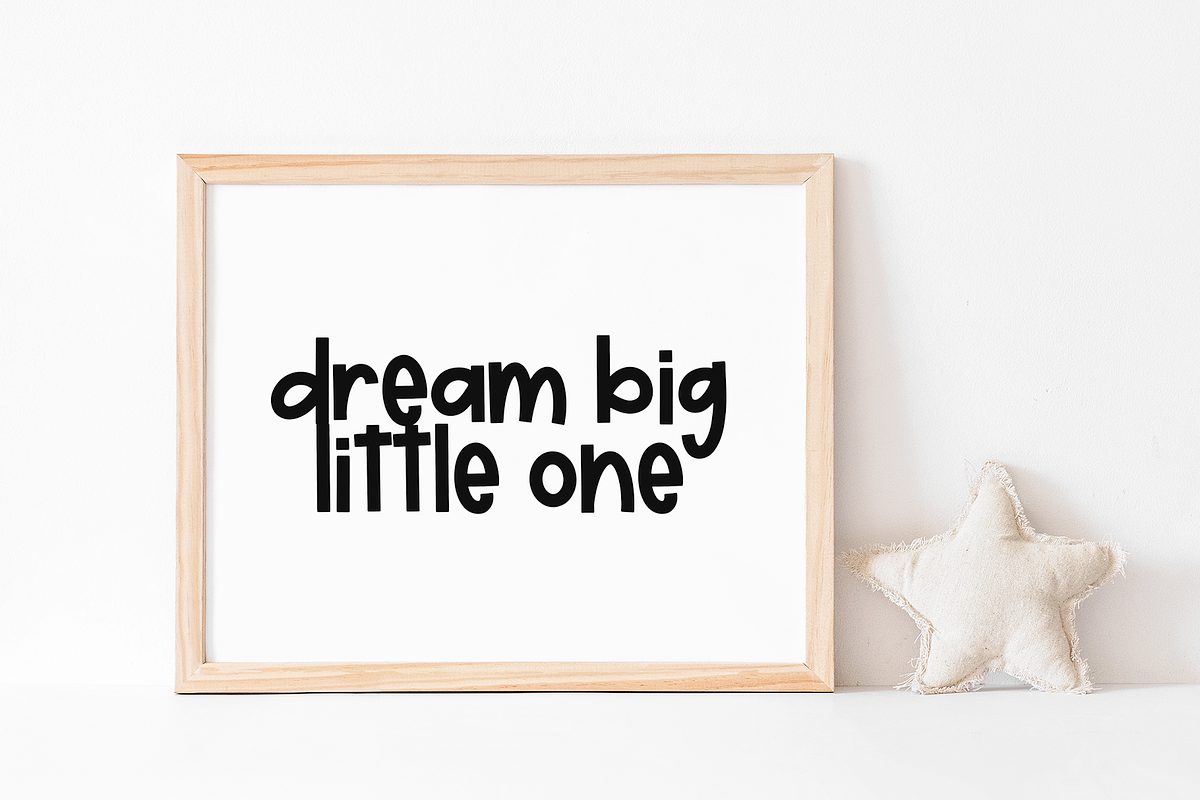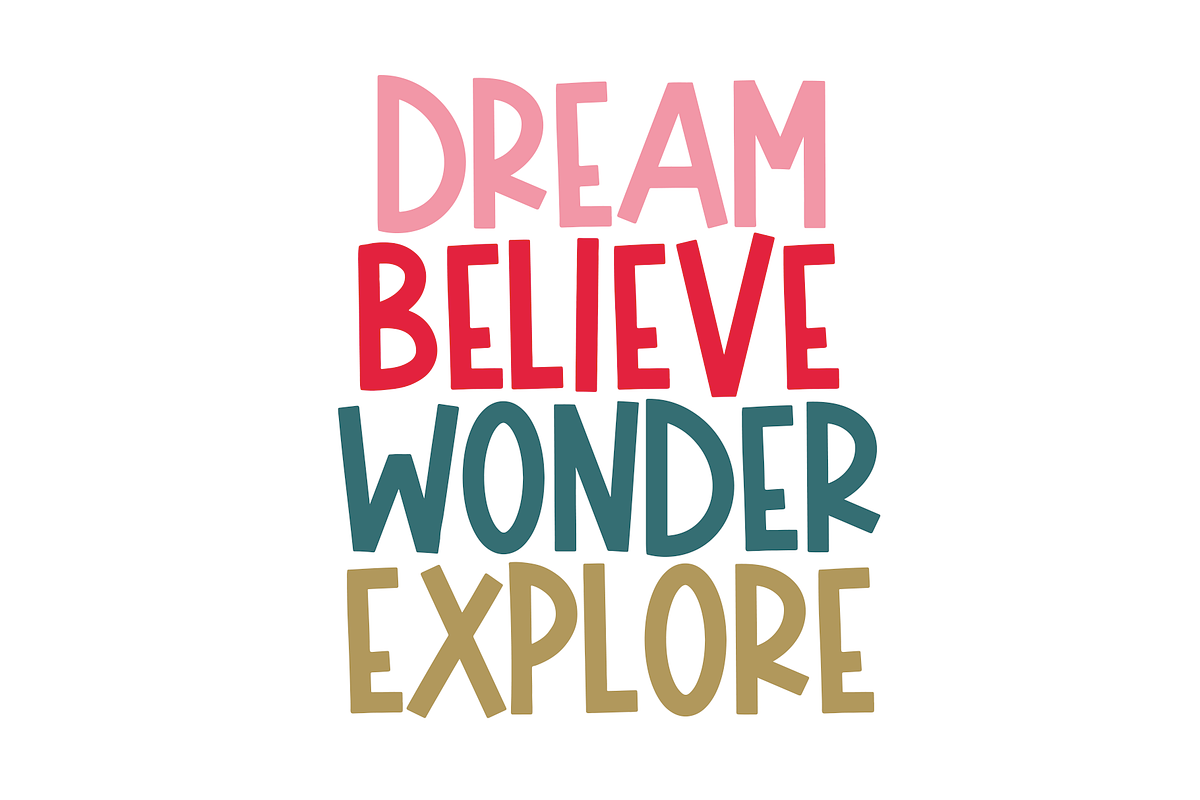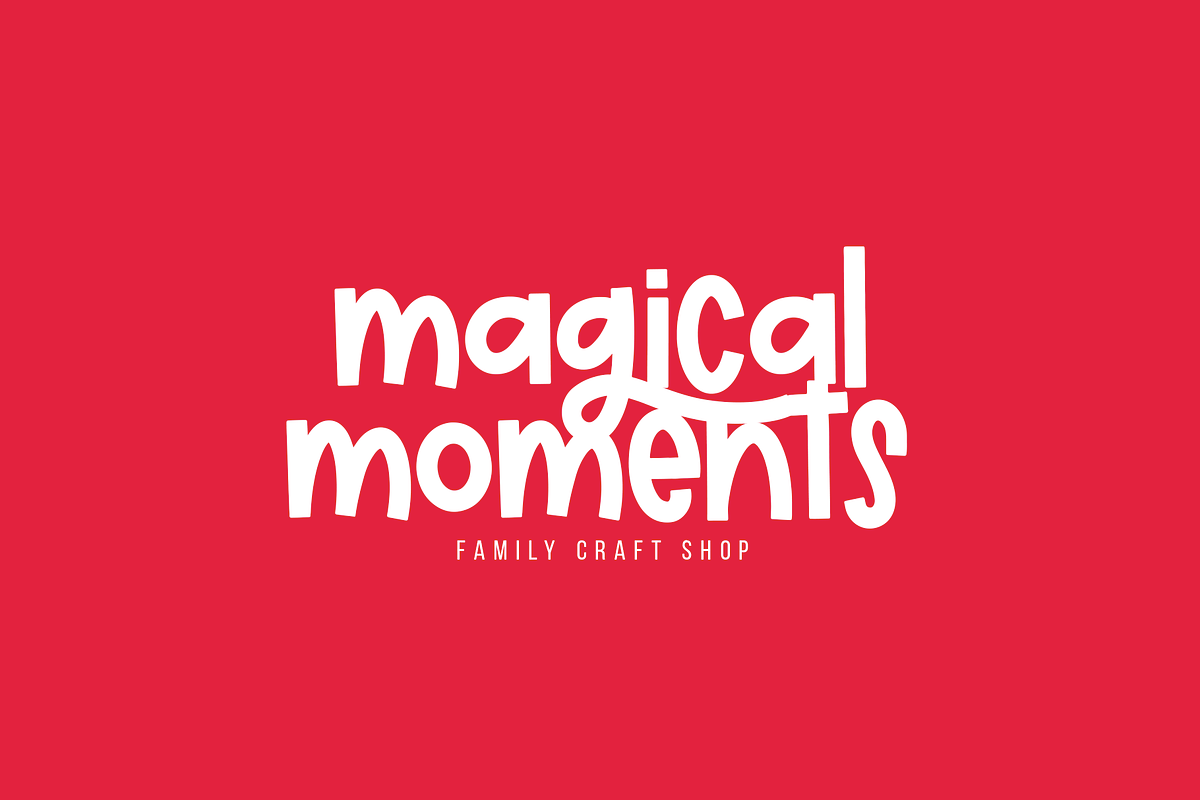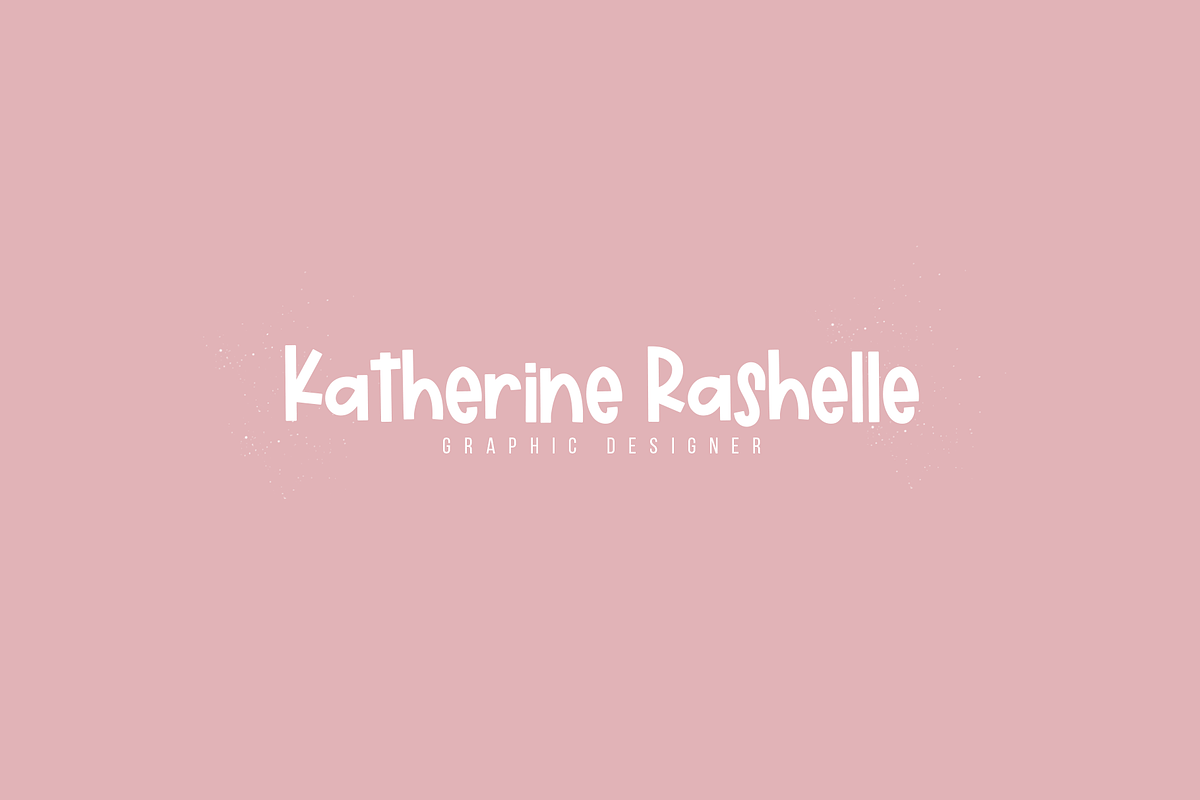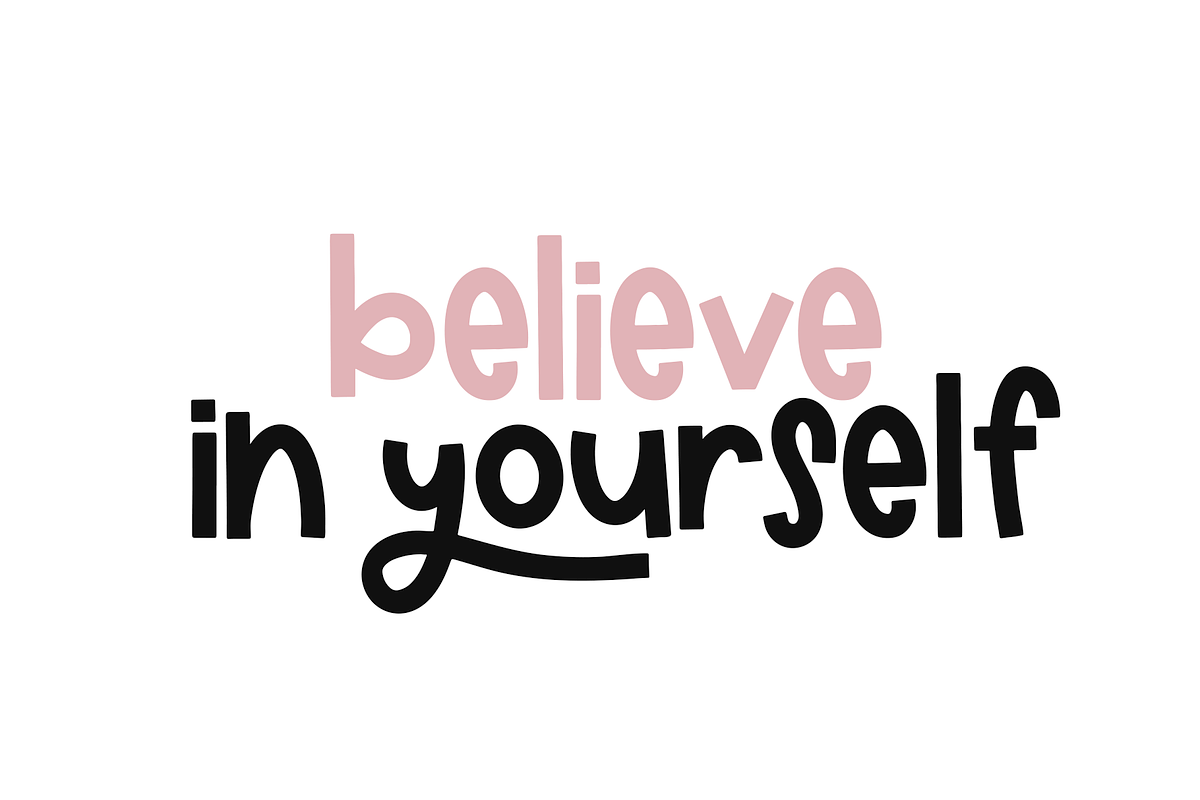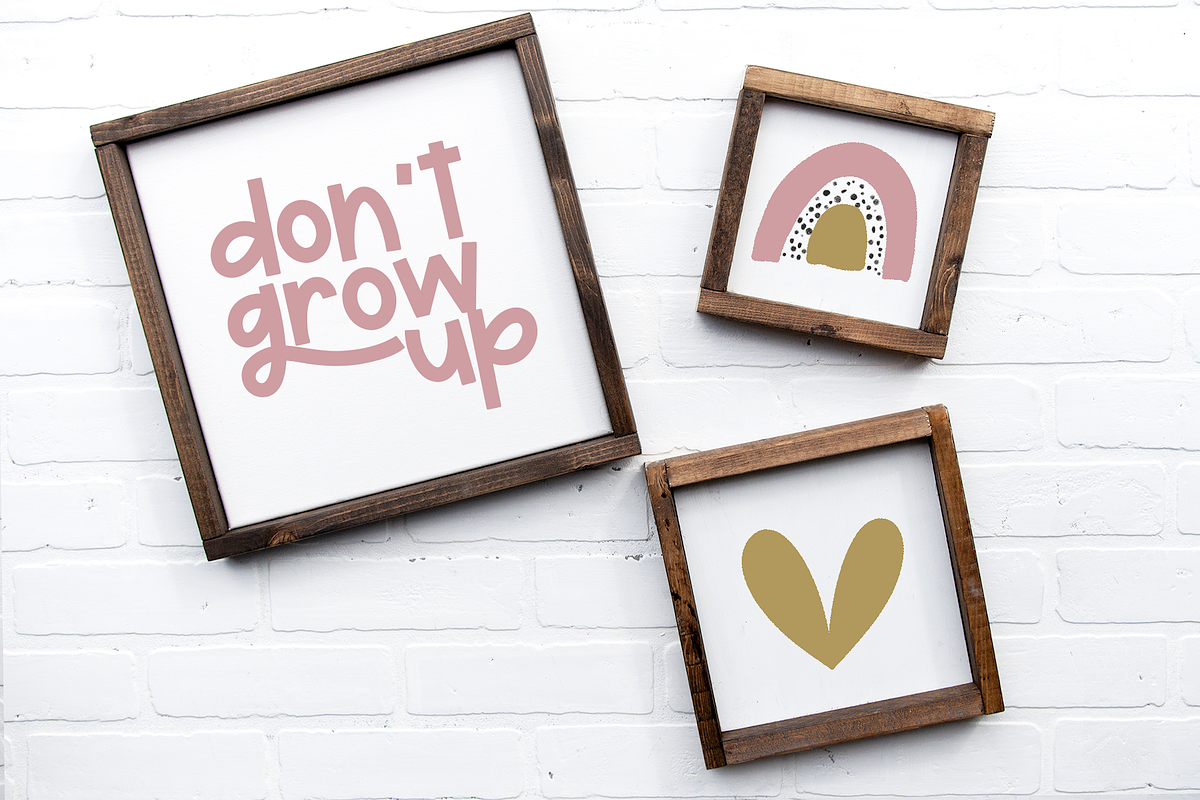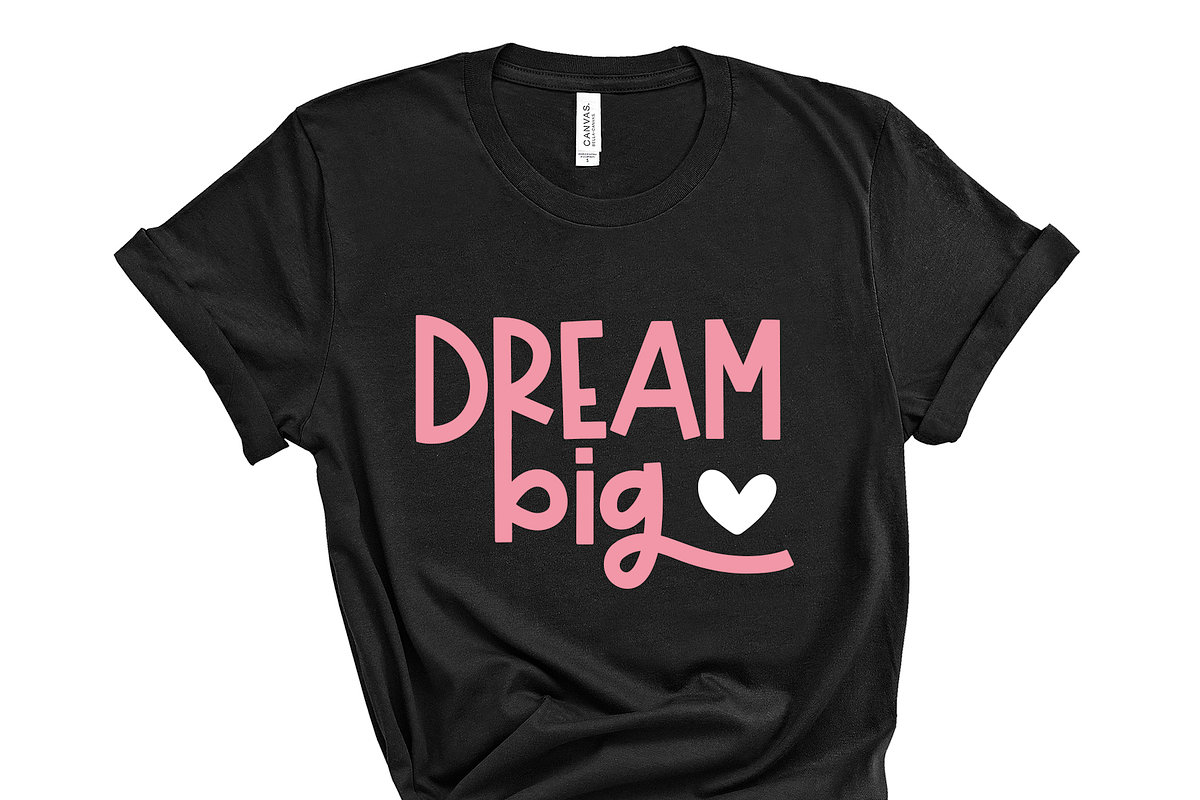
Sugarpie | Cute & Chunky Font
Sugarpie is a cute & quirky handwritten font! The letters are blocky, bold and easy to read!
Alternate characters available for letters: f, g, h, m, n, o, y
This font is perfect for quotes, shirt designs, websites, branding, children's designs, blogs, logos, invitations and more!